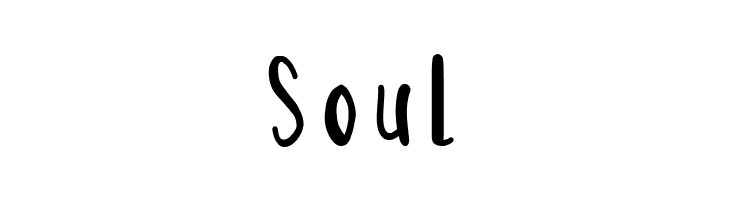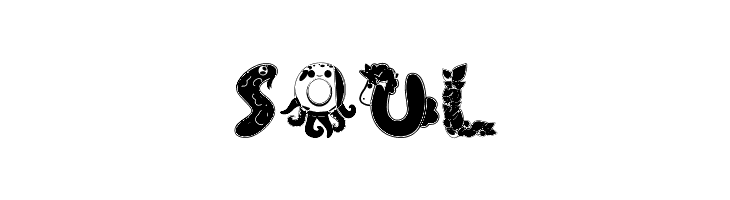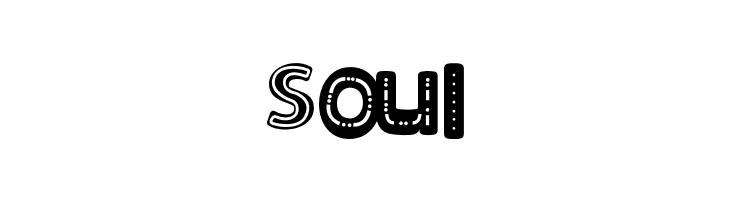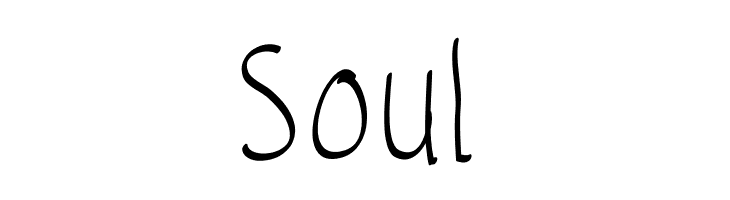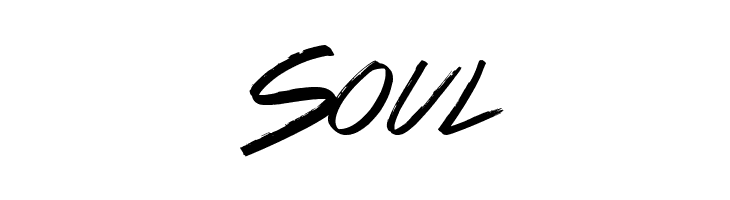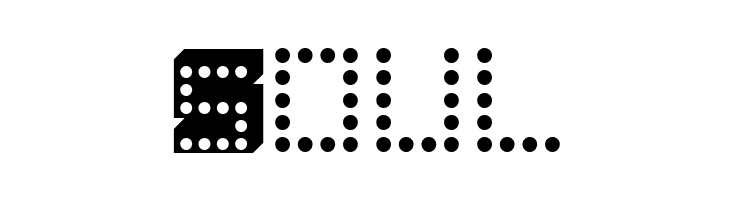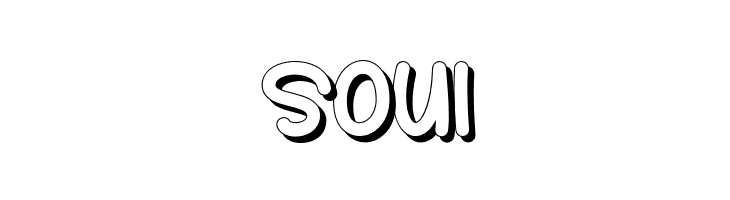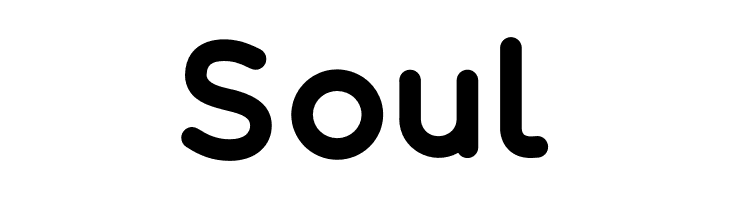
A playful, decorative font with candy-like patterns and bold outlines.
A whimsical, decorative font with playful elements in each character.
An elegant, flowing script font with artistic, interconnected characters.
A bold, energetic script font with sweeping strokes and dynamic flair.
A playful, hand-drawn outlined font with a whimsical and casual style.
A modern, rounded font with a playful and bold style.
A bold, dotted font with a digital display aesthetic.